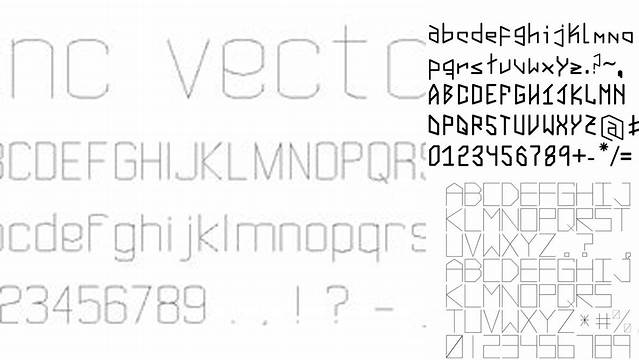
CNC Vector Font: Free Download & Design Tips For Your Projects
Hey guys, let's dive into the awesome world of CNC vector fonts! If you're into CNC machining, laser cutting, or even just cool graphic design, you're probably aware of how essential the right font is. But what exactly are CNC vector fonts, and where can you snag some free downloads? Plus, we'll cover some design tips to make your projects pop. Get ready to elevate your projects with style and precision!
What are CNC Vector Fonts?
So, what exactly is a CNC vector font? Well, unlike regular fonts, which are made up of pixels (like on your computer screen), CNC vector fonts are created using mathematical equations. These equations define lines, curves, and shapes, making them scalable to any size without losing quality. This is super crucial for CNC machines because they use these vectors to guide the cutting or engraving process. Think of it like this: a regular font is a mosaic, and a vector font is a blueprint. This means your CNC machine can precisely follow the instructions, resulting in clean, crisp cuts and engravings, no matter how big or small your design is. These fonts are specifically crafted to work seamlessly with CNC machines, ensuring accurate and high-quality results. This contrasts sharply with standard fonts that, when scaled up for CNC use, can become distorted and produce subpar results. The vector format ensures that your design maintains its integrity, providing clean lines and precise cuts. If you're working on a project that needs a high level of precision and detail, CNC vector fonts are the way to go. They're designed to be both visually appealing and machine-friendly, making them the perfect choice for projects that require a professional finish. Using them ensures that your final product looks exactly as intended, with sharp, clear details that highlight the craftsmanship involved. These vector fonts allow you to create everything from intricate signs and personalized gifts to industrial components with unmatched accuracy. In essence, CNC vector fonts bridge the gap between your design and the physical outcome, guaranteeing that your creation aligns with your vision. These fonts make sure that your design intentions translate perfectly into the physical world, creating stunning results. If you are looking for an edge for your next project, look no further. They will make sure you stand out from the rest of the crowd.
Where to Find Free CNC Vector Font Downloads
Design Tips for CNC Vector Fonts
Now that you've got your free CNC vector font downloads, let's talk design! Using the right font is just the beginning. The way you use it in your design is what makes the difference. First off, consider the material you'll be using and the type of CNC machine you're using. Thinner fonts might work great for laser cutting but could be too fragile for a router. Always keep the physical characteristics of your chosen material in mind. This goes hand in hand with the type of machine being used for your project. Ensure that the design you are aiming for can actually be brought to life by the machine. Similarly, the machine capabilities play a role in the selection of fonts. Next, pay attention to the font's weight and style. Bold fonts often work better for CNC projects because they're easier for the machine to follow and less prone to breaking. However, it depends on the design. Make sure to select fonts that will withstand the cutting process. Think about the visual impact: what message do you want your design to convey? A clean, sans-serif font might be perfect for a modern sign, while a more elaborate script font could be ideal for a personalized gift. Ensure that the message you are trying to communicate gets across. When using fonts for engraving, consider how the light will interact with the design. Deeply engraved fonts will cast more shadows, while shallow engravings will appear more subtle. Test different depths to achieve the desired effect. Don't be afraid to experiment with different fonts. This is the best way to find what works best. Also, always test your design before committing to the final product. Create a small test cut or engraving to make sure the font scales correctly, and that the design looks as intended. Testing saves both time and money. Spacing and kerning are super important. Kerning is the space between characters. Kerning is the space between individual letters, while spacing is the space between words. This ensures that your text is readable and visually balanced. Tight kerning can cause letters to merge during cutting, while too much spacing can make text look disconnected. Use your design software's kerning and tracking tools to fine-tune the look of your text. Try out a few different kerning and spacing combinations to see what works best. Always remember the little details. Good design is all about the details, and even the smallest adjustments can make a big difference in the final outcome. These small touches can set your work apart from the rest.
Even with the right fonts and software, you might run into some common issues. Don't worry; it's all part of the process, and here's how to fix them. One common problem is jagged edges or inaccurate cuts. This usually means the vector data isn't clean or precise. Make sure you are using a high-quality font. The lower the quality, the more jagged edges you'll have. Another cause can be scaling the font too much. Try scaling the font down to make sure it works correctly. Open the file in your design software and look for any overlapping lines or imperfections. You might need to clean up the design by removing those extra lines. Another frequent issue is missing or broken parts of the design. This could be due to the font's geometry or the CNC machine's settings. Check your machine's bit size. A bit that's too large might not be able to cut intricate details, leading to missing parts. Adjusting the cutting speed can also help. If the cutting speed is too fast, the machine might not be able to keep up, and parts of the design could break off. Always adjust the machine's settings so that everything works correctly. Ensure your software's settings are correct for the material you're using. For example, if you are cutting wood, use the wood's specific setting. Check the font's outline. Make sure the font is an outline and not filled in. Filled fonts can cause issues with the CNC machine. Also, sometimes the problem is with the font file itself. Redownloading the font from a different source can help. Double-check that your CNC machine and software support the specific font format. By doing this, you can usually resolve these issues without having to go through too much trouble. These steps will lead you in the right direction.
In conclusion, CNC vector fonts are an indispensable tool for anyone working with CNC machines. Finding the right fonts and knowing how to use them correctly can make a huge difference in your projects. Now you have a good idea of what free downloads are available and some design tips to help you create amazing projects. Enjoy your designing and creating process, and always keep experimenting. Happy crafting, guys!